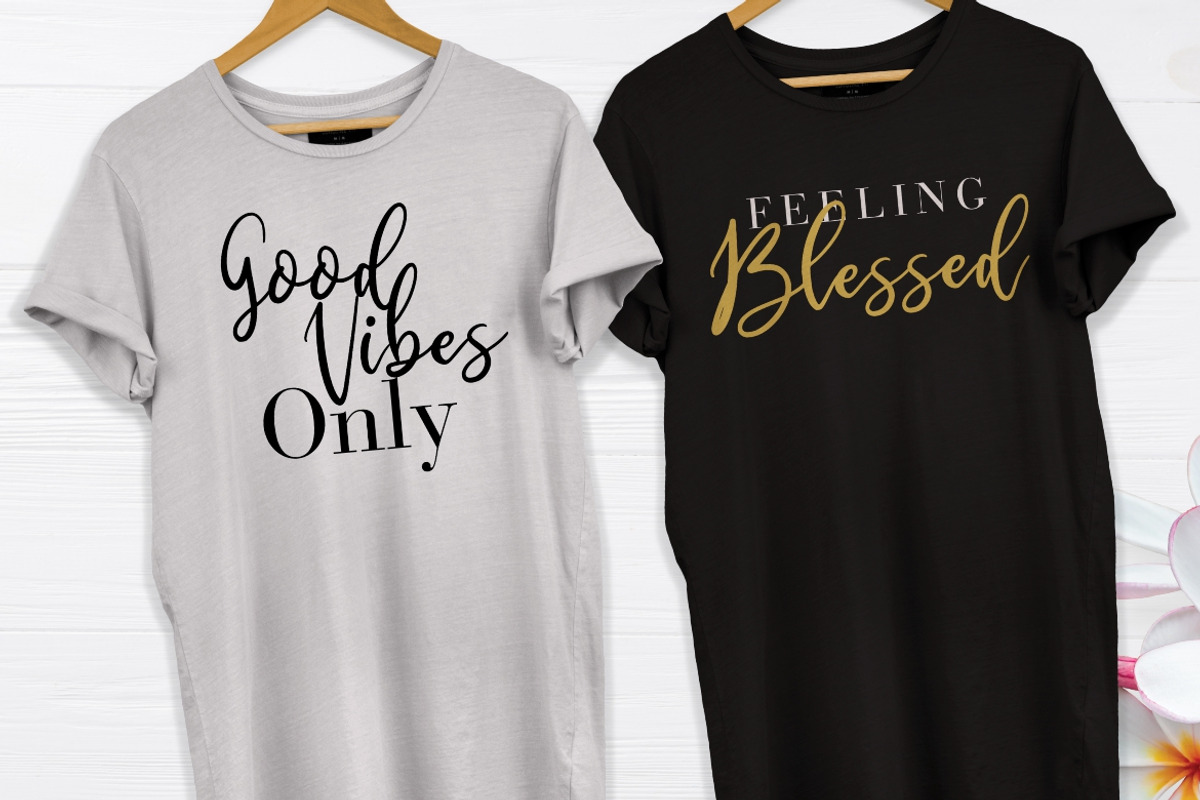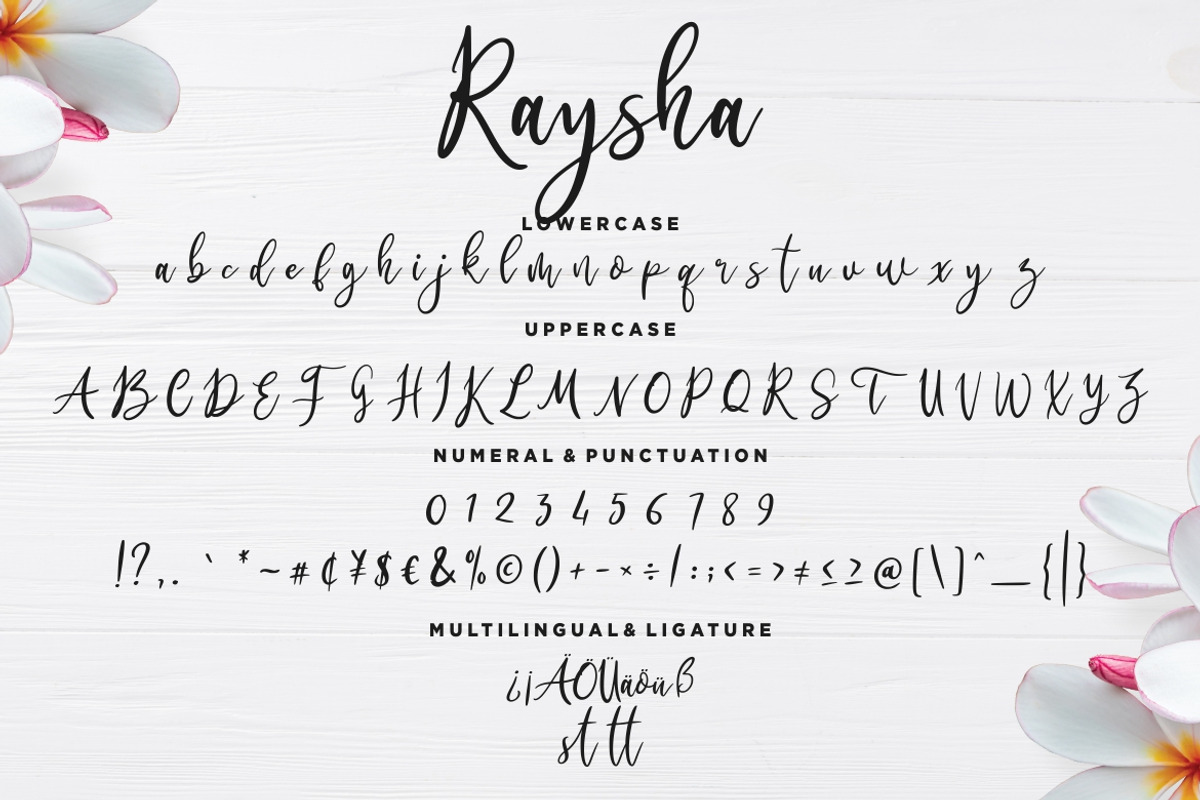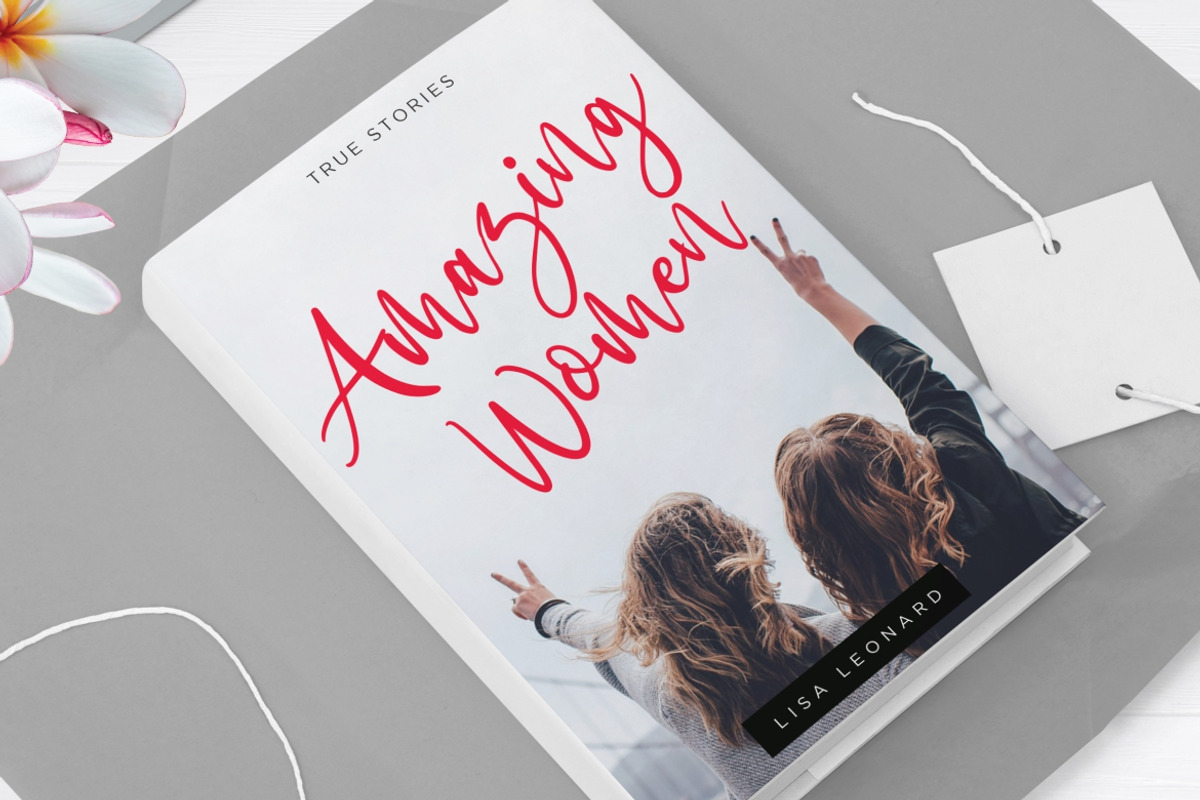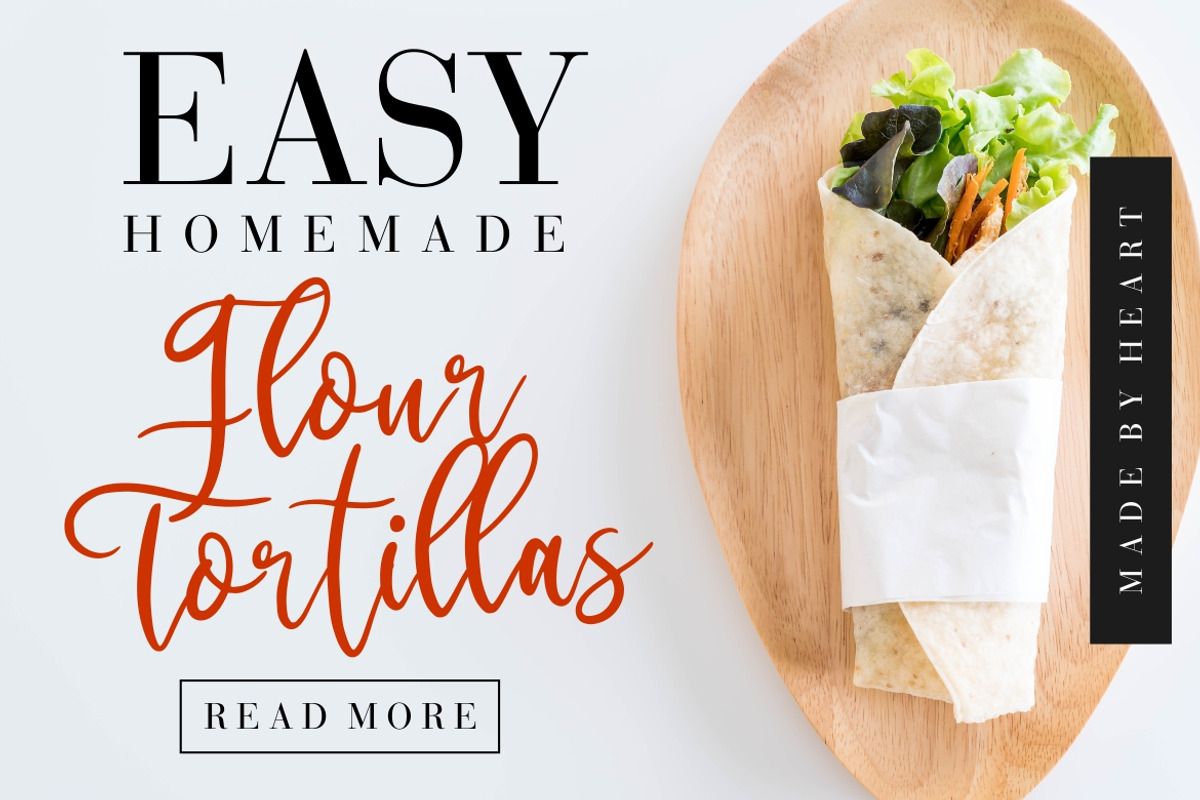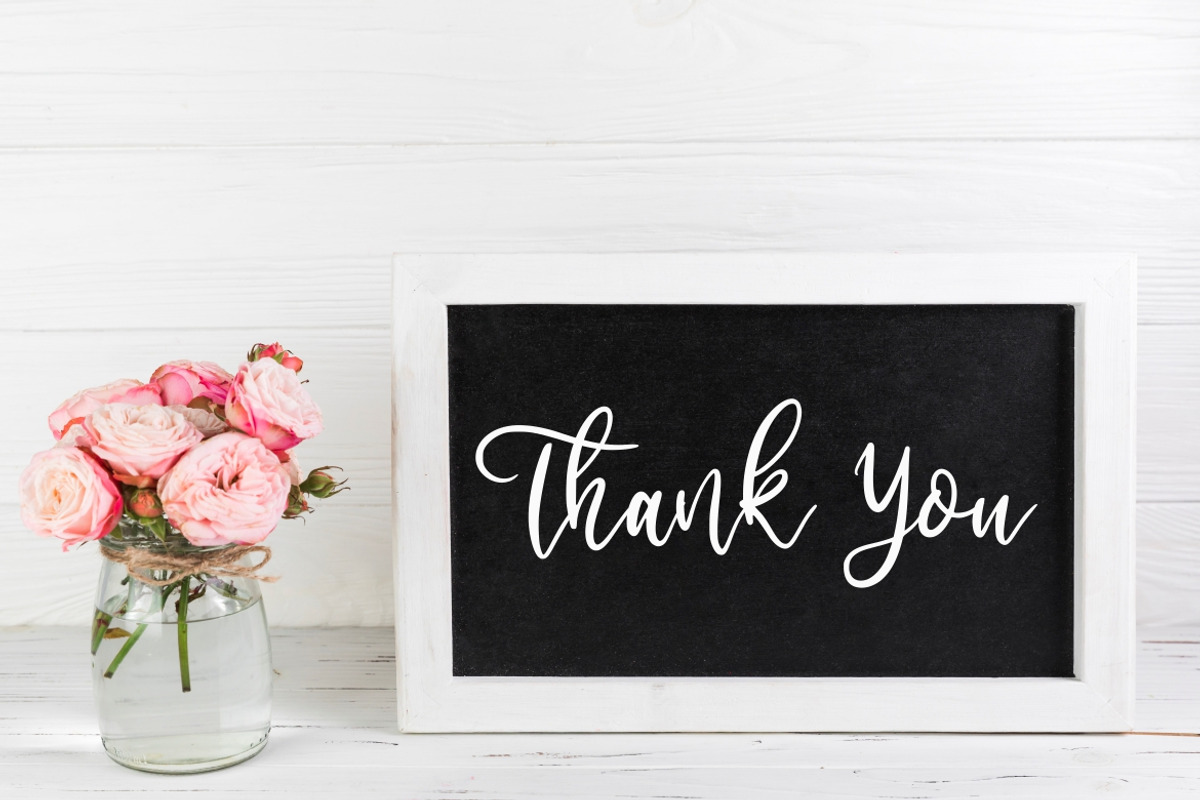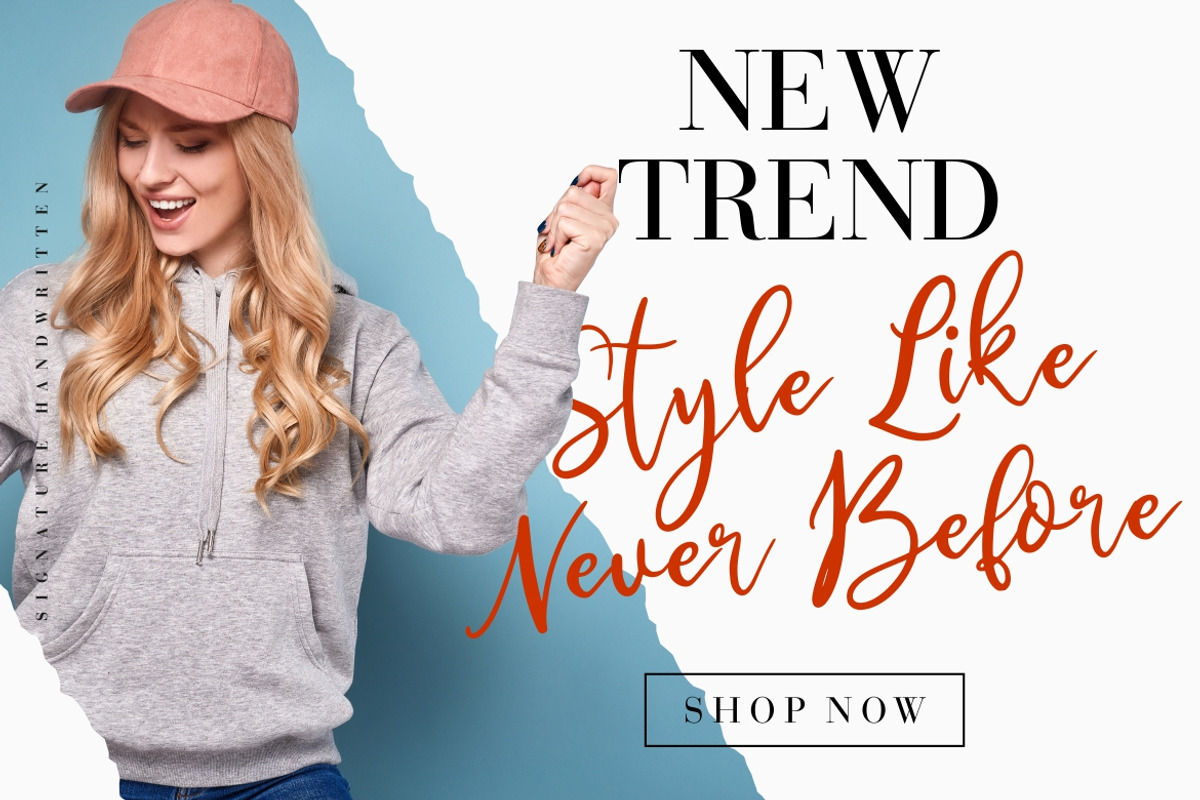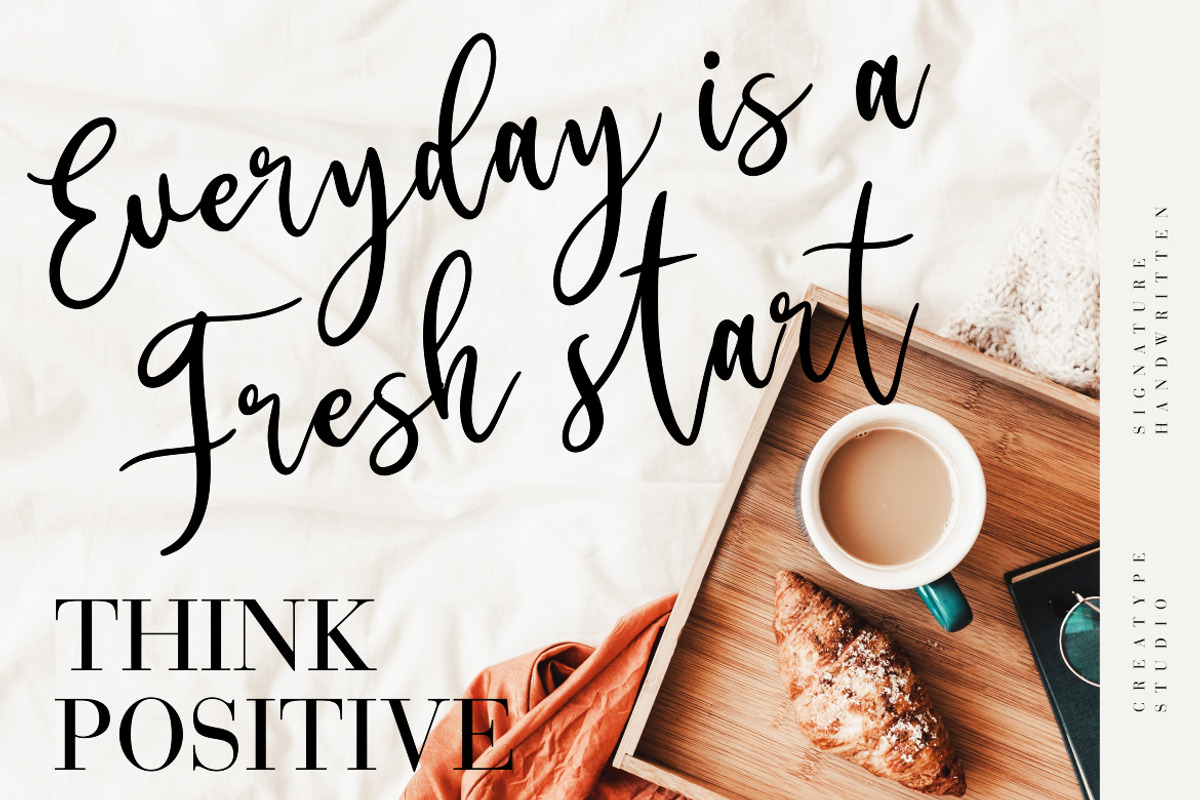
Raysha Signature Wedding Font
Raysha is signature handwritten font with natural movement sketch.
Rayshat is perfect for branding projects, logo, wedding designs, social media posts, advertisements, product packaging, product designs, label, photography, watermark, invitation, stationery and any projects that need handwriting taste.
- Fonts include multilingual support for; ä ö ü Ä Ö Ü ß ¿ ¡
Why Raysha Signature Wedding Font is worth a look
Raysha Signature Wedding Font by Creatype Studio fits naturally into Branding, posters, packaging, typography.